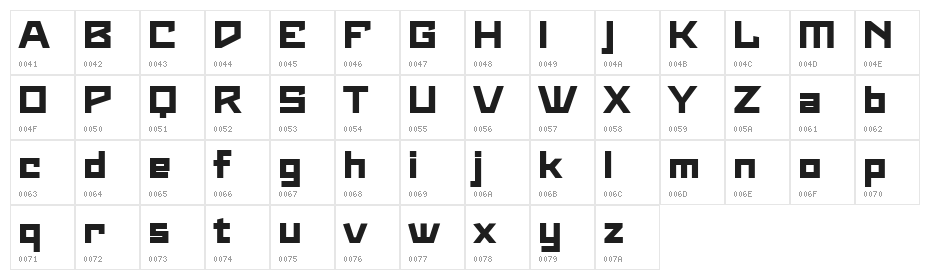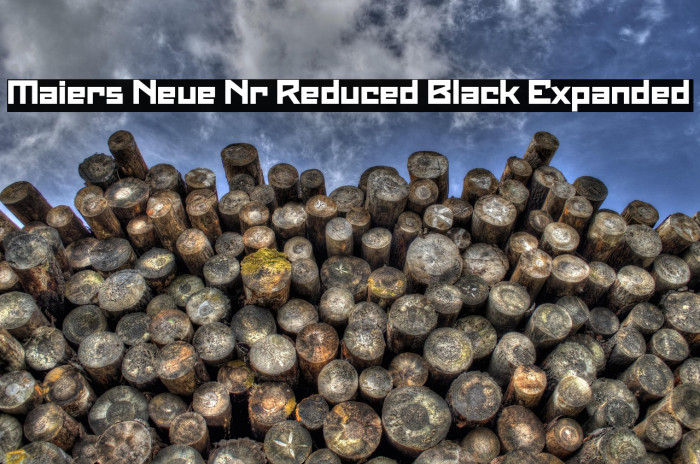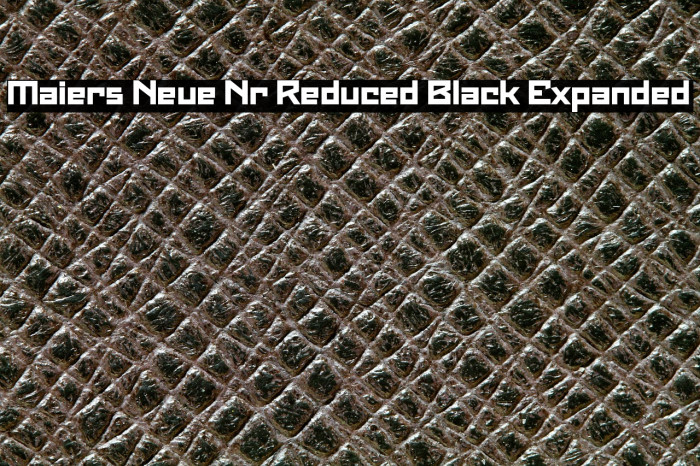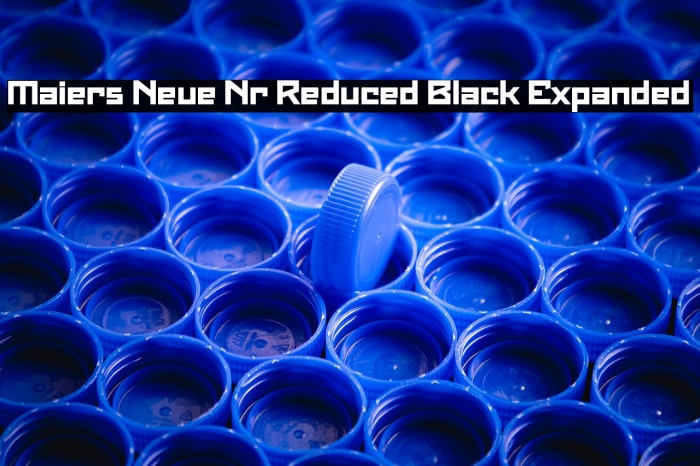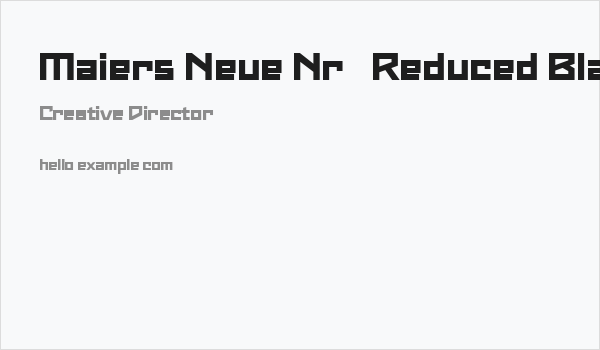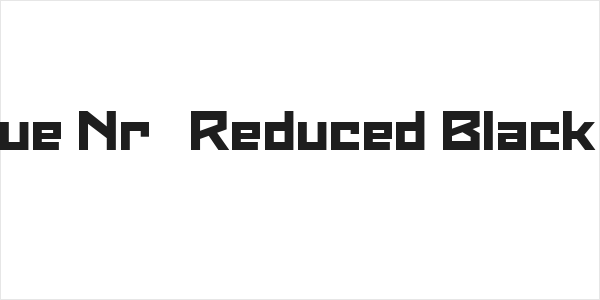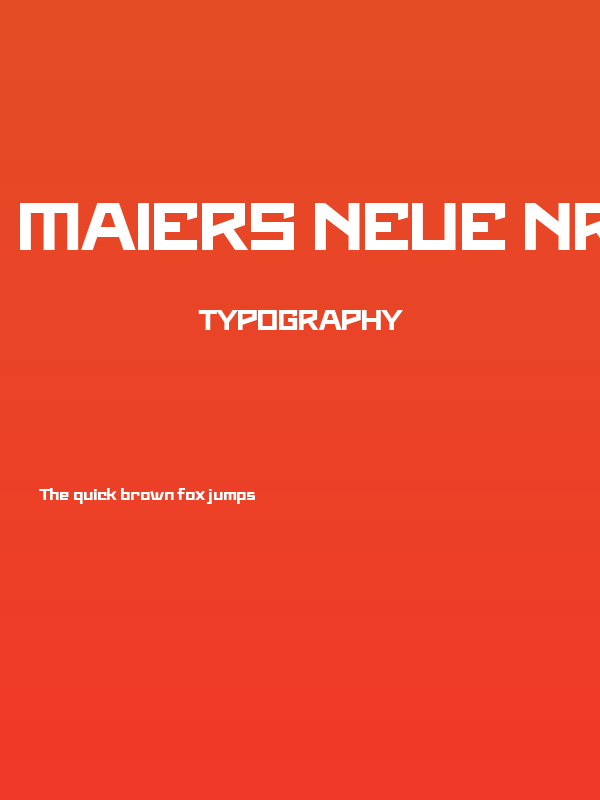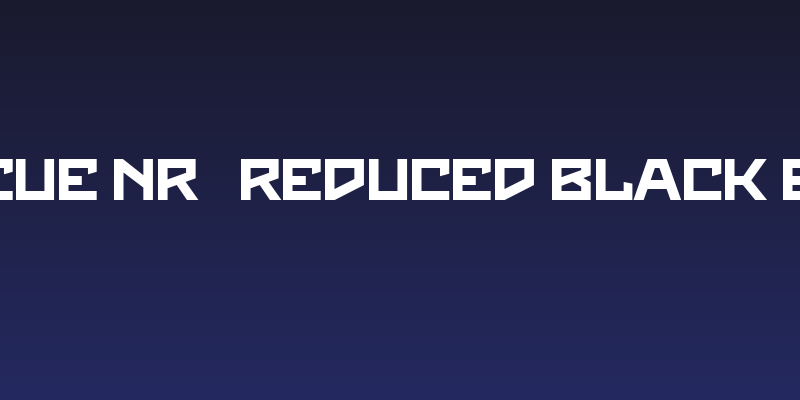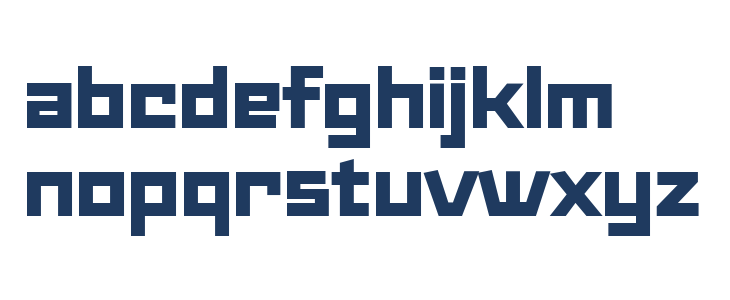
Maiers Neue Nr.8 Reduced Black Expanded Font
Maiers Neue Nr.8 Reduced Black Expanded Description
This font features a bold, geometric design with a strong presence. The characters are constructed with sharp angles and straight lines, giving it a modern and assertive look. The uppercase and lowercase letters maintain a consistent style, with a uniform thickness that enhances readability. The font's expanded width adds to its commanding appearance, making it suitable for attention-grabbing headlines and titles. Its unique style is both contemporary and versatile, ideal for projects that require a bold statement.